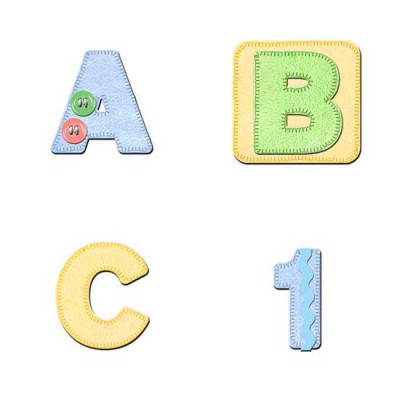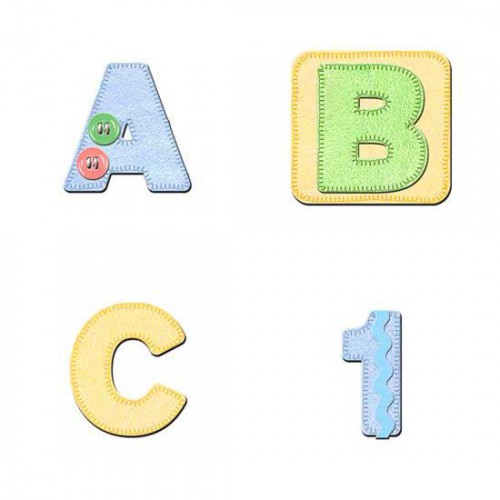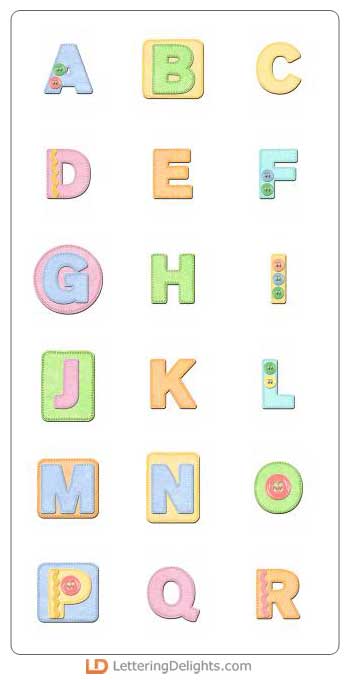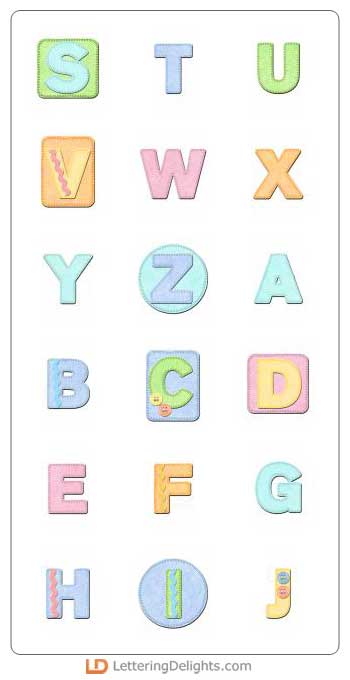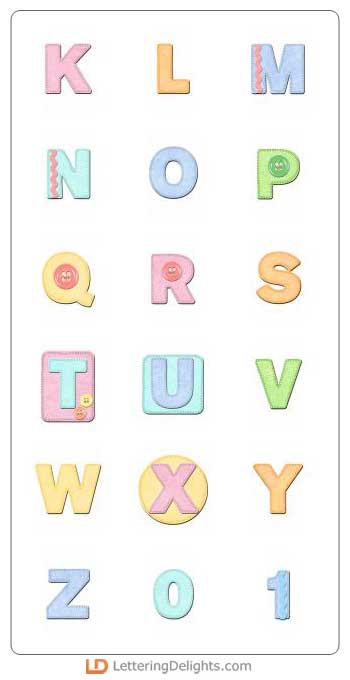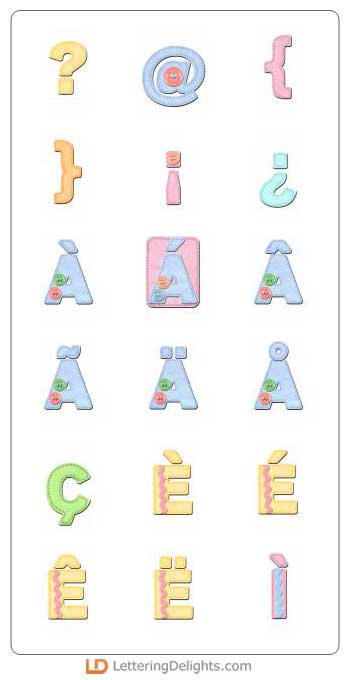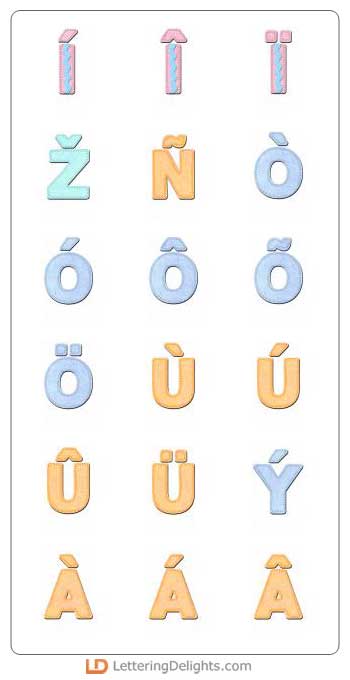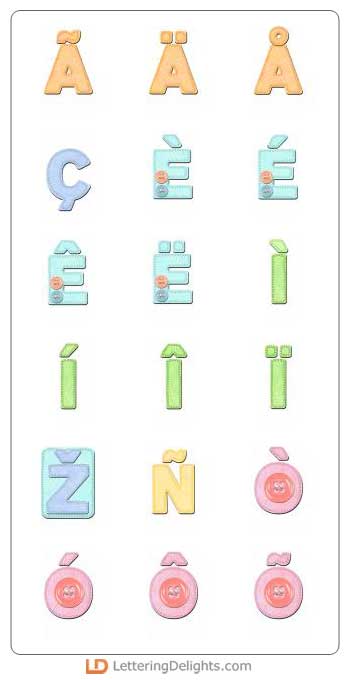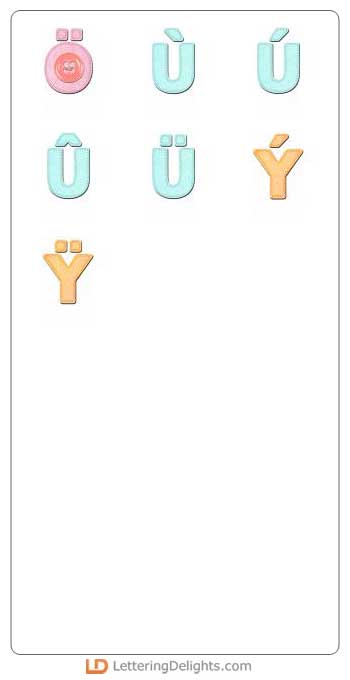
Felt Like Spring alphabet has the look of home made fabric and sewn stitches. The pastel colors and are just in time for Spring. Perfect for digitally scrapbooking those special spring time memories.